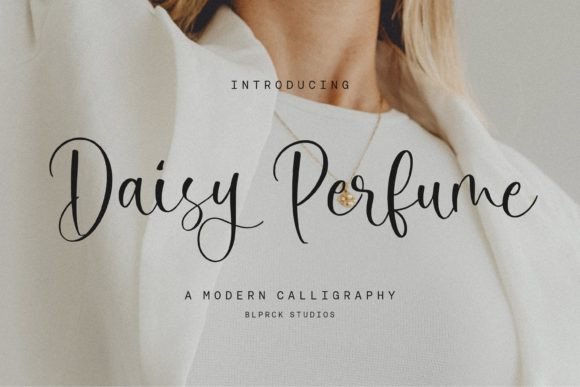
Adding a Personal Touch to Your Designs
There’s something special about holding a handwritten note or a beautifully crafted invitation in your hands. The personal touch it adds to the overall design is undeniable. For designers, the goal is often to create a unique and memorable experience for the viewer, and that’s exactly what the Daisy Perfume Font aims to achieve.
Crafted with care and attention to detail, the Daisy Perfume Font is a Modern Calligraphy Font that’s perfect for adding a personal touch to your design projects. Its natural, organic feel and unique character make it incredibly versatile, allowing designers to push the boundaries of their creativity. Whether you’re working on a logo, branding, invitation, or something else, the Daisy Perfume Font is a valuable addition to any designer’s toolkit.
Daisy Perfume Font Key Features
- Font Style: Script, Handwritten
- Unique Characteristics: Hand-drawn, elegant, and sophisticated design; suitable for perfume, beauty, and luxury branding
Daisy Perfume Font Review
I recently had the chance to work with the Daisy Perfume Font, and I must say, it’s a unique and intriguing font. Here’s my honest take on it.
- Unconventional flair: The Daisy Perfume Font has a certain charm to it that sets it apart from more traditional fonts.
- Legibility: Despite its quirky appearance, the font is surprisingly easy to read, even at smaller sizes.
- Limited font family: The Daisy Perfume Font is a single font family, which may not offer the same flexibility as more comprehensive font packages.
- Not ideal for body text: While the font is readable, it may not be the best choice for large blocks of text due to its ornate nature.
- No bold or italic weights: If you need to emphasize text or provide additional visual hierarchy, you may be limited by the font’s available weights.
The Daisy Perfume Font is a great choice for projects where you want to add a touch of whimsy or elegance. However, it may not be the best fit for more serious or formal content. If you’re looking for a unique font to add some visual interest to your designs, the Daisy Perfume Font is definitely worth considering.
1. Use the font for titles and headings to add a touch of elegance.
2. Pair the font with bold or italic styles for added emphasis.
3. Experiment with different font sizes and colors to create a unique look.
The Daisy Perfume Font is ideal for:
2. Branding and marketing materials.
3. Creative and artistic projects.
Alternatives to Daisy Perfume Font
Great Vibes is a handwritten font with a unique, playful feel. It’s perfect for adding a touch of whimsy to your designs, especially in branding and advertising materials. Compared to Daisy Perfume Font, Great Vibes has a more relaxed, casual vibe, while Daisy Perfume Font is more elegant and sophisticated.
Alex Brush is a beautiful, elegant script font that’s great for adding a touch of sophistication to your designs. It’s perfect for use in invitations, wedding stationery, and other high-end materials. Compared to Daisy Perfume Font, Alex Brush is more refined and polished, while Daisy Perfume Font has a more delicate, feminine feel.
Carolyna Pro is a modern, elegant font that’s perfect for use in high-end branding and advertising materials. It’s great for adding a touch of sophistication and glamour to your designs. Compared to Daisy Perfume Font, Carolyna Pro is more contemporary and sleek, while Daisy Perfume Font has a more vintage, feminine feel.
Pacifico is a beautiful, elegant script font that’s perfect for use in branding and advertising materials. It’s great for adding a touch of sophistication and elegance to your designs. Compared to Daisy Perfume Font, Pacifico is more refined and polished, while Daisy Perfume Font has a more delicate, feminine feel.
Creative Project Ideas Using Daisy Perfume Font
Project 1: Vintage Floral Invitation